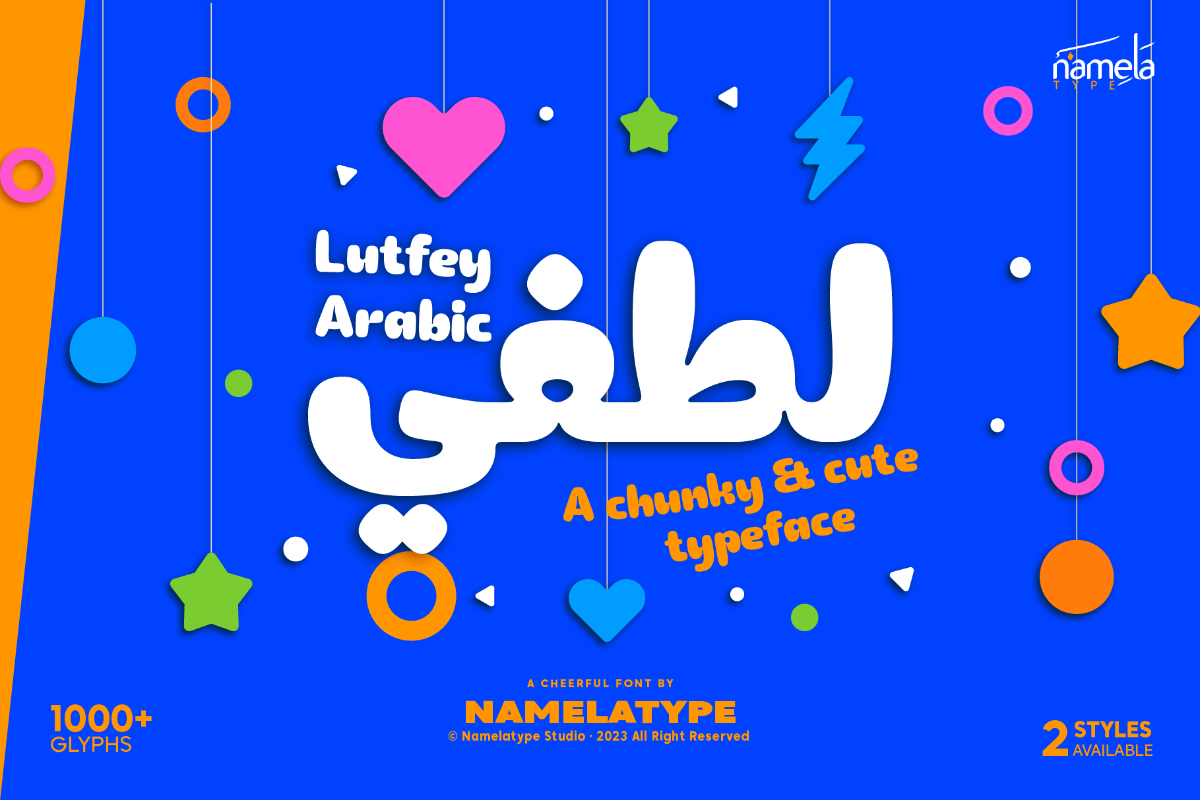
Lutfey Arabic Solid
Lutfey Arabic Font - A Chunky Arabic Display Typeface for Branding & Apps Playful Arabic typography has long been an underserved space. While many Arabic display fonts lean toward formal, calligraphic, or geometric styles, few truly explore warmth, energy, and expressive character. Lutfey Arabic Chunky Display Font from Namelatype steps directly into that gap. As a bold display font, it extends the chunky, friendly personality of its Latin counterpart into Arabic script—combining thick letterf